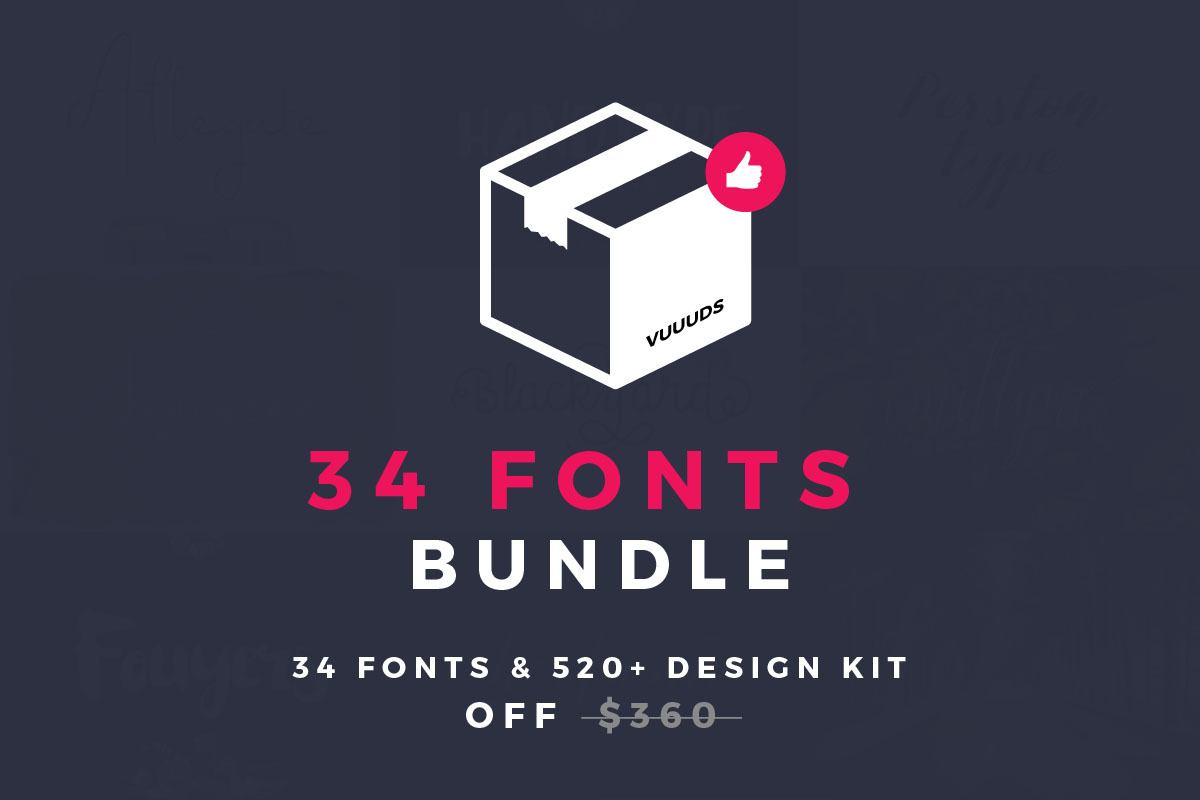
This comprehensive collection is perfect for design agencies, freelance graphic designers, branding studios, marketing departments, creative entrepreneurs, social media campaigns, web design projects, and versatile print applications. Its extensive variety makes it ideal for projects requiring multiple typography styles and matching vector graphics in one complete package.
Max Bundle 34 Fonts + 520 Vector is exciting because it provides an entire design arsenal combining diverse typography styles with matching vector illustrations, eliminating the need for separate purchases and ensuring perfect visual harmony across all design elements. The bundle features carefully curated fonts ranging from elegant serifs to modern sans-serifs, complemented by professionally crafted vector graphics that enhance creative possibilities. This comprehensive approach saves time, money, and ensures cohesive design consistency.
The Max Bundle 34 Fonts + 520 Vector family includes script fonts, display typefaces, body text fonts, decorative styles, and specialty fonts, along with icons, illustrations, logos, patterns, and design elements. Many components feature multiple weights, alternates, and scalable vector formats optimized for both print and digital applications.
Whether you're building complete brand identities, developing marketing campaigns, or creating diverse client projects, Max Bundle 34 Fonts + 520 Vector Free Download provides unmatched creative value with professional versatility. This massive collection transforms any designer's toolkit with instant access to coordinated typography and graphics that work seamlessly together. Its exceptional variety ensures you'll always have the perfect combination of fonts and vectors for any creative challenge, making it an indispensable resource for professionals who demand comprehensive design solutions and maximum creative flexibility.